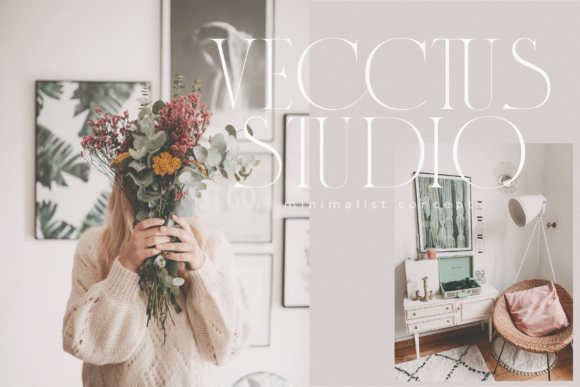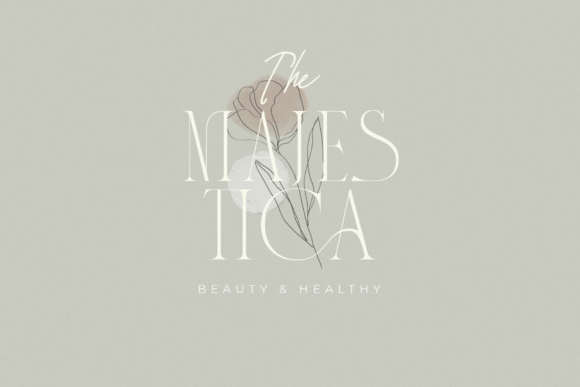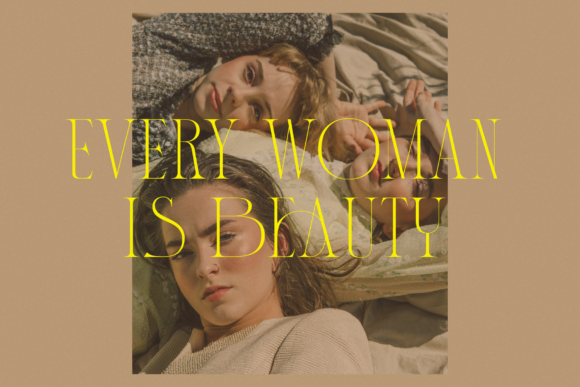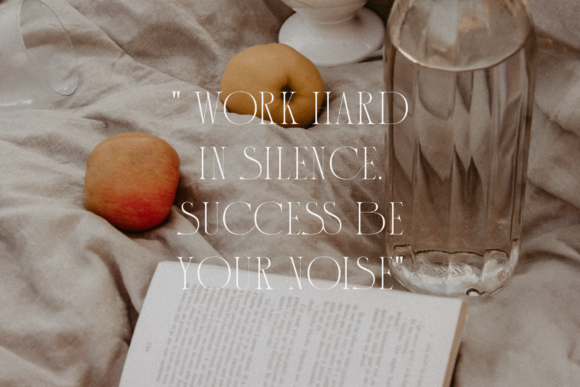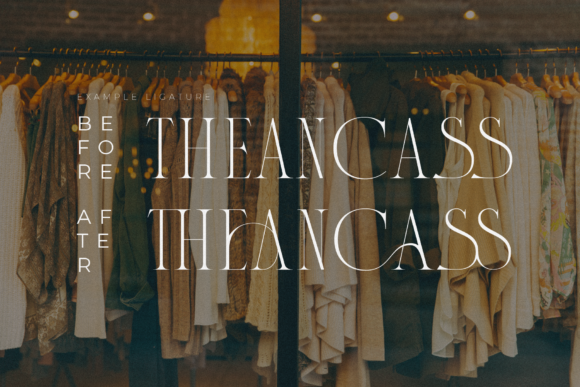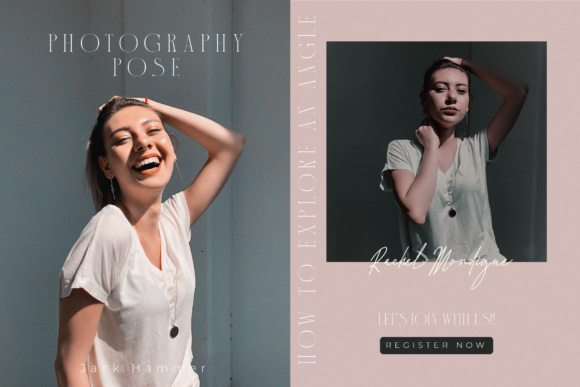
The Perfect Typography for a Standout Design
Have you ever scrolled through your social media feed and stumbled upon a post that caught your eye, not just because of the content, but because of the beautiful typography? I know I have, and it’s moments like those that remind me of the power of great design. Whether it’s a fashion magazine cover or a business card, the right font can make all the difference.
That’s why I’m excited to introduce you to the Bulgary Chycane Font, a stunning and modern serif font that’s perfect for making a statement. With its sleek lines and elegant feel, this font is ideal for a wide range of applications, from social media posts and fashion magazines to branding materials and advertisements.
For designers, the Bulgary Chycane Font is a valuable addition to any toolkit, offering a unique and eye-catching look that’s sure to set your designs apart from the crowd. Whether you’re working on a personal project or a client brief, this font is sure to help you create something truly special.
Bulgary Chycane Font Key Features
- Unique Characteristics: Bulgary Chycane Font features a unique blend of modern and vintage elements, with intricate details and ornaments, making it perfect for creating eye-catching and elegant designs.
- Font Style: Available in Regular and Bold styles, with multiple weight variations
Bulgary Chycane Font Review
Overall, I think Bulgary Chycane Font is a unique and stylish choice for designers. It’s definitely a statement font that can add a touch of elegance to any project. ✨ Here are some things that work well:
- High-end feel: The Bulgary Chycane Font exudes luxury and sophistication, making it perfect for high-end fashion or jewelry brands.
- Customizable: The font comes in various weights and styles, allowing designers to mix and match to create a unique look.
- Unique character set: The font has a distinctive character set that sets it apart from other serif fonts.
However, I do have some reservations about this font. ⚠️ Here are some limitations:
- Limited versatility: While the font is great for high-end brands, it may not be suitable for more casual or playful projects.
- Difficulty in readability: The font’s unique character set can make it difficult to read at small sizes or in certain contexts.
- No matching font family: The Bulgary Chycane Font doesn’t come with a matching font family, which can make it harder to create a cohesive look.
Overall, I think Bulgary Chycane Font is a great choice for designers who want to add a touch of luxury to their projects. However, it’s essential to consider the limitations and use it judiciously to avoid any readability issues.
The Bulgary Chycane font is ideal for creative and artistic projects, such as graphics, logos, and typography-based designs. To get the most out of it, use it sparingly and in combination with other fonts to create a unique and eye-catching look. Some common use cases include:
- Graphics and illustrations
- Typography-based designs
- Artistic and creative projects